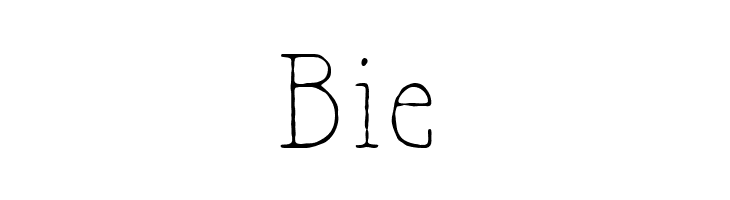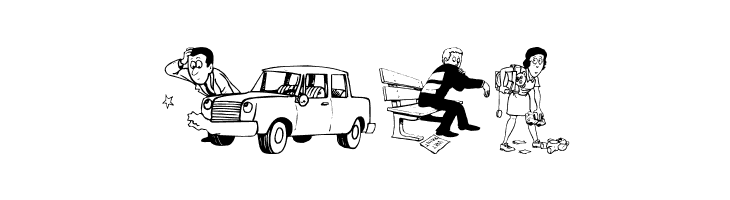
• MaiersNr.Reduced-Bold
A bold, handcrafted serif font with medium contrast and slightly condensed width.
• MaiersNr.Reduced-Bold
A bold, textured serif font with a handcrafted appearance.
• MaiersNr.Reduced-Light
A whimsical, hand-drawn font with a vintage feel and irregular strokes.
• MaiersNr.Reduced-Light
A thin, hand-drawn serif font with an elegant and organic style.
• MaiersNr8-Bold
A bold, distressed font with a vintage, industrial aesthetic.
• MaiersNr8-Light
A hand-drawn, light font with a geometric yet organic style.
• Majestic X
An elegant and ornate script font with intricate flourishes.
• Major Snafu
A bold, geometric stencil font with a military-industrial aesthetic.
• Malahit Bold
A bold, playful font with thick, rounded strokes and a whimsical style.
• Malheur